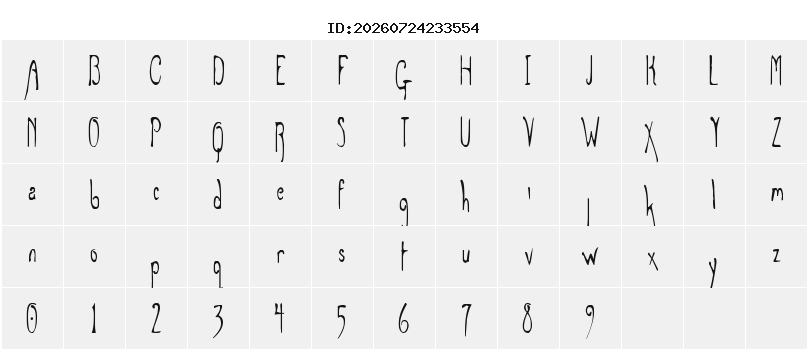
• Font Name: Grey Magus
About Grey Magus.ttf
Grey Magus.ttf is a modern, elegant sans-serif font designed for ultimate readability and visual harmony. Perfect for branding, headlines, web design, and print materials.